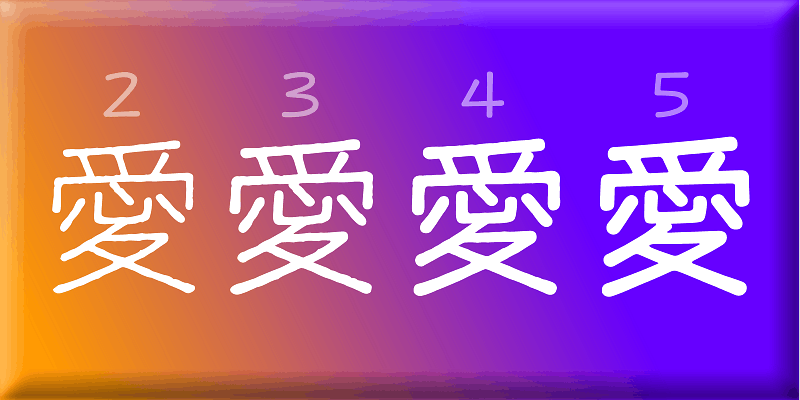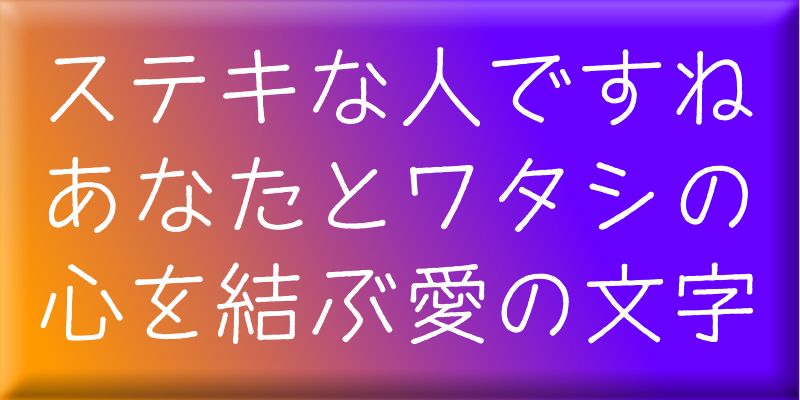
Based on artwork drawn with a fine point pen, the character outlines of this typeface have some roughness – a unique handcrafted quality, free from pretentious penmanship.
Express yourself frankly with this friendly and readable type design. We hope you will use this font to effectively convey your ideas and wishes.
With the four weights in this typeface family, you can effectively convey your ideas and wishes.
Through typeface designs, we aim to convey a meaning beyond the textual content. Typefaces that allow users to clearly convey their full meaning. Typefaces that both typesetters and readers will enjoy. These are the kind of typefaces that we aim to create.